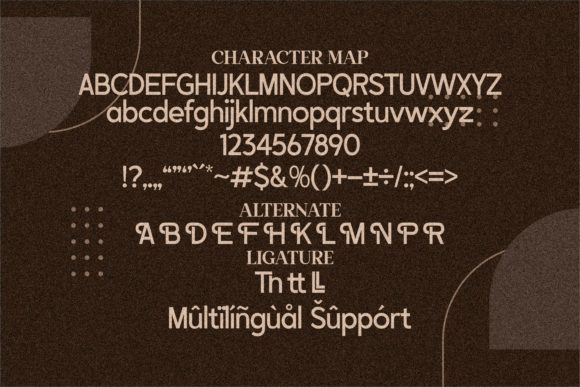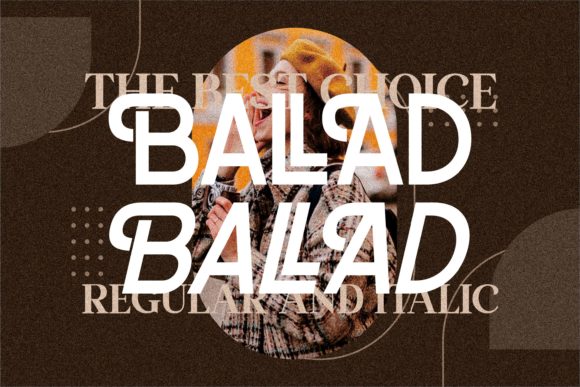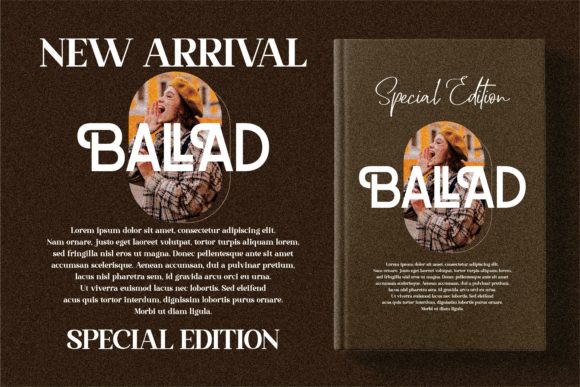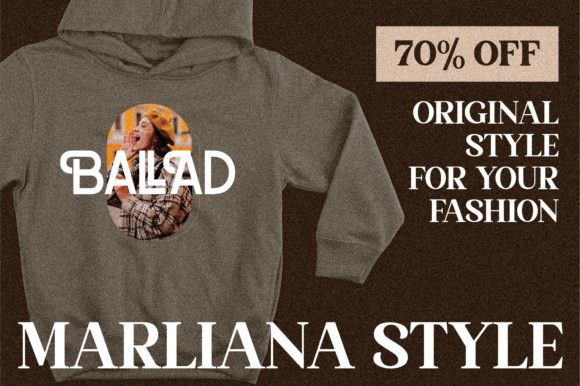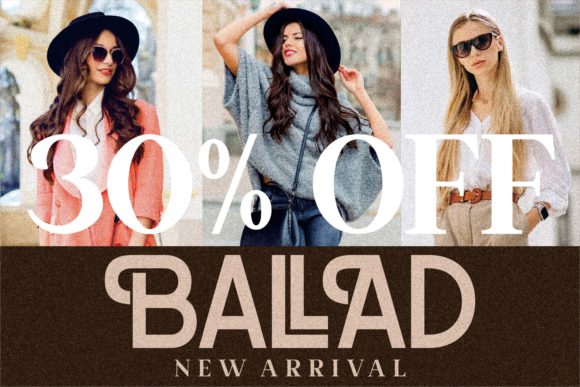
Introducing Ballad Font: Elevate Your Designs with Elegance
In the world of typography, fonts play a crucial role in conveying the tone and aesthetic of a design. For designers and crafters seeking to add a touch of elegance and sophistication to their creations, the Ballad Font is an exceptional choice. This beautiful, vintage-styled sans serif font is versatile, timeless, and sure to become a prized asset in your font library.
The Charm of Ballad Font
Ballad Font boasts an elegant, classic design that effortlessly complements a wide range of themes and subjects. Its sans serif structure lends a clean and modern touch, while its vintage inspiration adds warmth and character. This unique blend makes Ballad an incredibly versatile font, suitable for various design applications, from branding and advertising to packaging and digital media.
Key Features of Ballad Font
- Elegant and Sophisticated: Ballad’s refined design makes it perfect for projects requiring a touch of luxury and sophistication.
- Vintage Inspiration: The font’s classic roots give it a timeless quality, allowing it to work seamlessly with both modern and traditional design elements.
- Versatile: Ballad’s adaptability makes it an excellent choice for a variety of design projects, including logos, headings, and body text.
- Easy to Read: The clear, sans serif structure ensures excellent legibility, making it suitable for both digital and print applications.
Use Cases for Ballad Font
The versatility of Ballad Font means it can be used in a multitude of design scenarios. Here are a few ideas to get you started:
- Branding and Logos: Create a lasting impression with a sophisticated logo that exudes elegance and refinement.
- Advertising and Marketing: Use Ballad to add a touch of class to your advertising materials, from brochures to billboards.
- Packaging Design: Elevate your product packaging with a font that conveys luxury and sophistication.
- Digital Media: Enhance your website, social media, or digital publications with Ballad’s clean, modern aesthetic.
Why Choose Ballad Font?
With so many fonts available, why choose Ballad? The answer lies in its unique combination of elegance, versatility, and timelessness. Whether you’re a designer looking to expand your font library or a crafter seeking the perfect typography for your project, Ballad Font offers:
- Uniqueness: Stand out from the crowd with a font that offers a distinctive, yet classic look.
- Flexibility: Use Ballad across various design projects, from digital to print, and across different themes and subjects.
- Quality: Enjoy a professionally crafted font that meets the highest standards of design and typography.
In conclusion, Ballad Font is an exceptional addition to any designer’s or crafter’s toolkit. Its elegant, vintage-styled sans serif design, combined with its versatility and timelessness, makes it an invaluable asset for a wide range of projects. Whether you’re aiming to create a luxurious brand image, craft beautiful packaging, or simply add a touch of sophistication to your digital media, Ballad Font is sure to exceed your expectations.